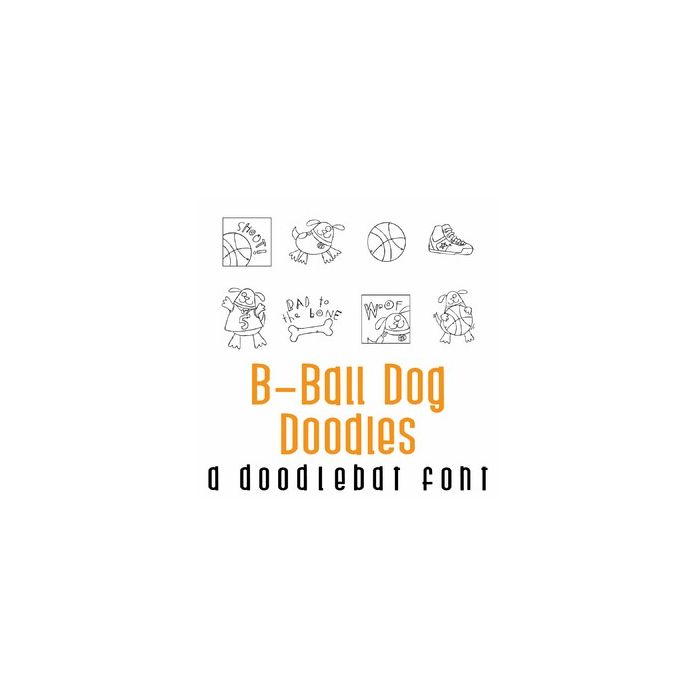
This fun doodlebat font features 26 doodle style dogs and basketball. Perfect for cards, gifts, decor, crafts, scrap book pages, planner stickers and more!